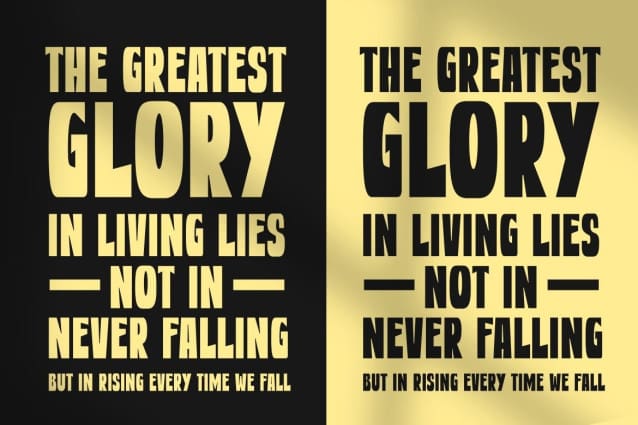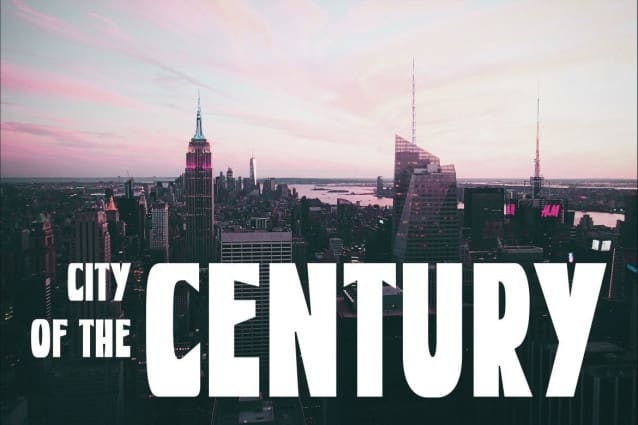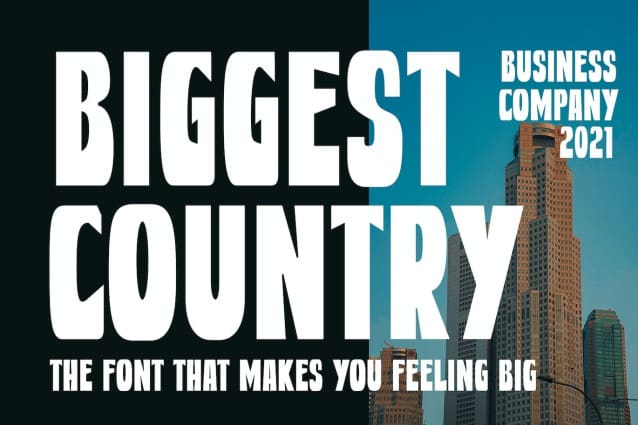
Biggest Country Font
Biggest Country Font is strong and bold and modern sans serif font. It can easily be paired with a huge number of projects, so add it to your creative ideas and notice how they stand out!